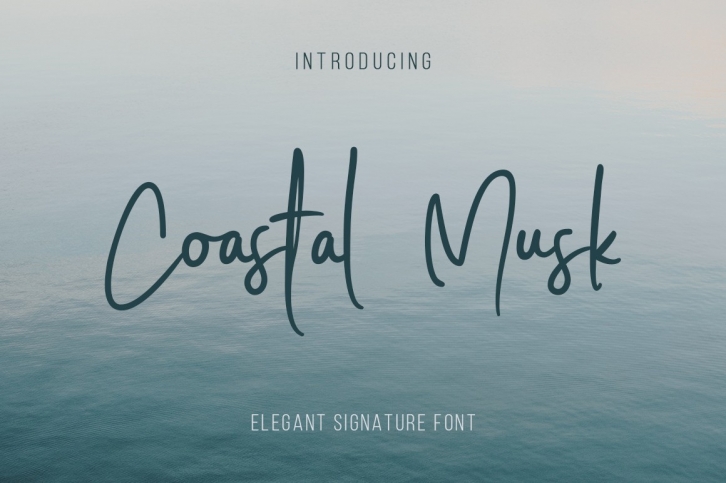
Coastal Musk is a great font that was designed by Avotype. Imagine the amount of combinations you can create using this font! The archive is 15.42 MB and it was released on November 27, 2019. Coastal Musk looks beautiful on wedding invitations, greeting cards, logos, posters, labels, t-shirt designs, logos, business cards and is perfect for use in ink or watercolor works, fashion, magazines, packaging and food menus, children's books and more!